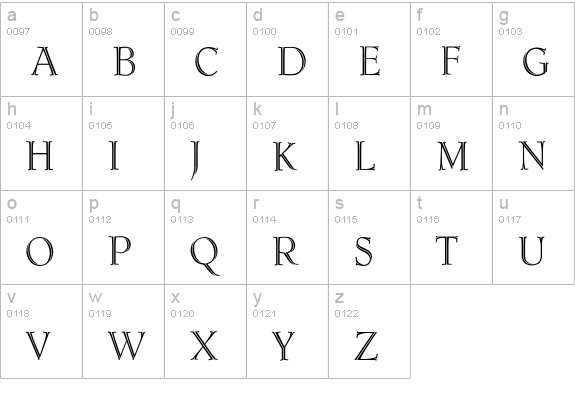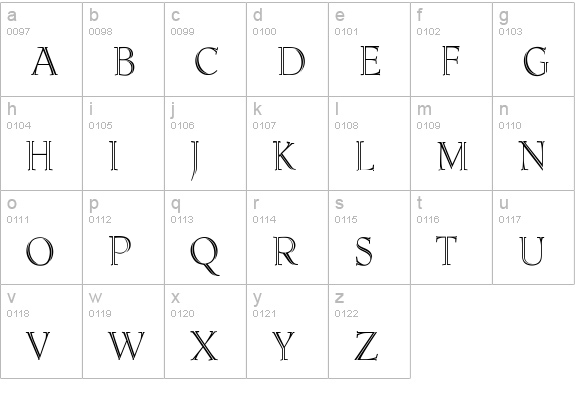
TheodorInitials Font Details
TheodorInitials font is a stunning display font that adds a touch of elegance and sophistication to any design project. With its intricate and beautifully crafted letterforms, this font is perfect for creating eye-catching headlines, logos, and branding materials. Featuring a unique blend of classic and modern design elements, TheodorInitials font stands out from the crowd and captures attention with its bold and distinctive style. Each letter is meticulously designed and balanced, ensuring a harmonious flow and an overall appealing aesthetic. One of the most impressive aspects of TheodorInitials font is that it is completely free. Yes, you read that right - this incredible font is freely available to download at FontsMarket.com. It's a rare find to come across such a high-quality font that doesn't come with a hefty price tag, making it an invaluable asset for designers, creatives, and anyone looking to add a touch of elegance to their work. The versatility of TheodorInitials font is also worth mentioning. Whether you are designing a wedding invitation, a magazine cover, or a restaurant menu, this font can adapt to any project and enhance its visual appeal. Its timeless and sophisticated style makes it suitable for both modern and traditional designs, giving you endless possibilities for creative expression. In addition to its aesthetic appeal, TheodorInitials font is also highly legible, ensuring that your message is communicated effectively to your audience. Its well-defined letterforms and generous spacing make reading a breeze, while still maintaining its unique and artistic charm. So, if you're looking to elevate your design projects and make a lasting impression, TheodorInitials font is the perfect choice. Download this incredible font for free at FontsMarket.com and unlock a world of creative possibilities.